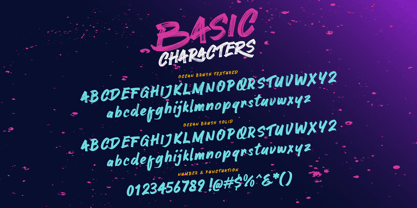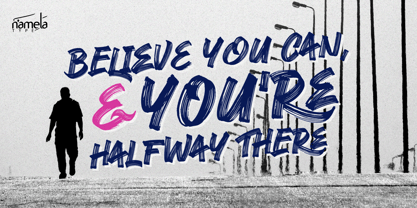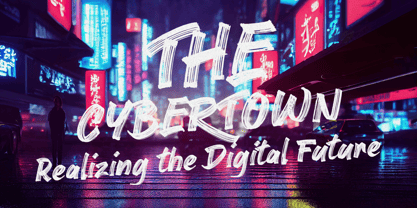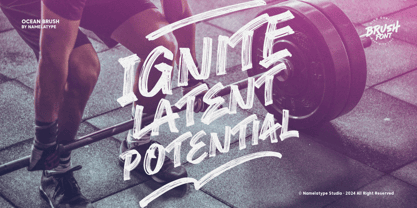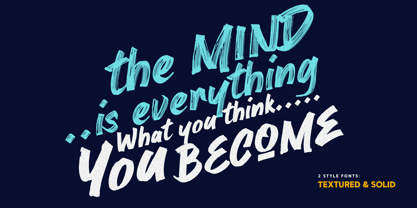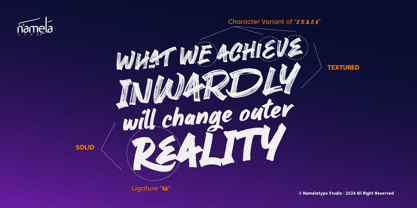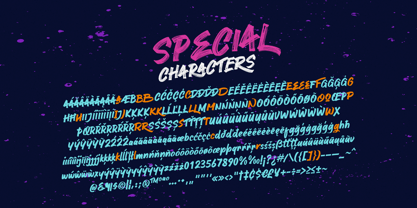
Ocean Brush
by NamelaType
The Ocean Brush Font Family was designed by Nur Syamsi, Bustanul Arifin and published by NamelaType. Ocean Brush contains 2 styles and family package options. More about this family
The Ocean Brush is a handwritten brush font inspired by the dynamic and free movement of waves. Each stroke in this font captures the strength of nature, providing a natural and expressive artistic touch to your designs. This font stands out for its ability to convey both the tranquility and power of the ocean, creating a versatile tool for a wide range of creative applications.
Ocean handwritten brush font is perfect for creative projects such as posters, logos, product packaging, and social media content that require a fresh and energetic aesthetic. Whether you’re designing a bold and adventurous poster or an elegant and contemporary logo, Ocean Brush adapts to fit the mood and tone you wish to convey. Its unique character can add a touch of natural elegance to product packaging, making your brand stand out on the shelves. For social media, Ocean Brush brings a refreshing and spirited vibe, making your content more engaging and visually appealing.
Designers: Nur Syamsi, Bustanul Arifin
Foundry: NamelaType
Ocean Brush